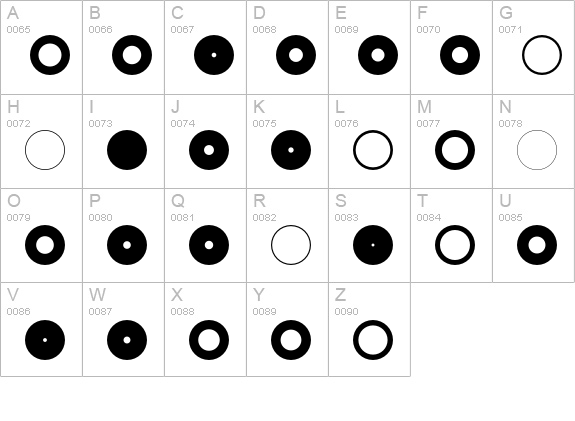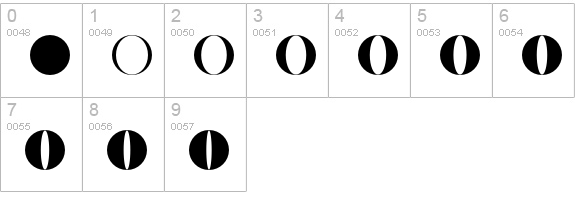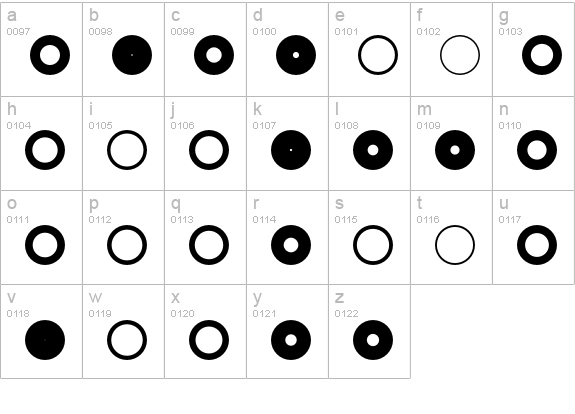
Freeform-Four Font Details
Introducing Freeform-Four font, a unique and versatile typeface that exudes creativity and freedom. This font is designed with fluid lines and playful curves, making it perfect for various design projects that require a touch of artistic flair. With its free-spirited style, Freeform-Four font is sure to make your designs stand out and capture attention. The best part is that Freeform-Four font is freely available to download at FontsMarket.com, allowing you to unleash your creativity without any constraints. Whether you're working on a branding project, poster design, or any other creative endeavor, this font will bring a sense of freedom and individuality to your work. Embrace the freedom of expression with Freeform-Four font and take your designs to the next level.